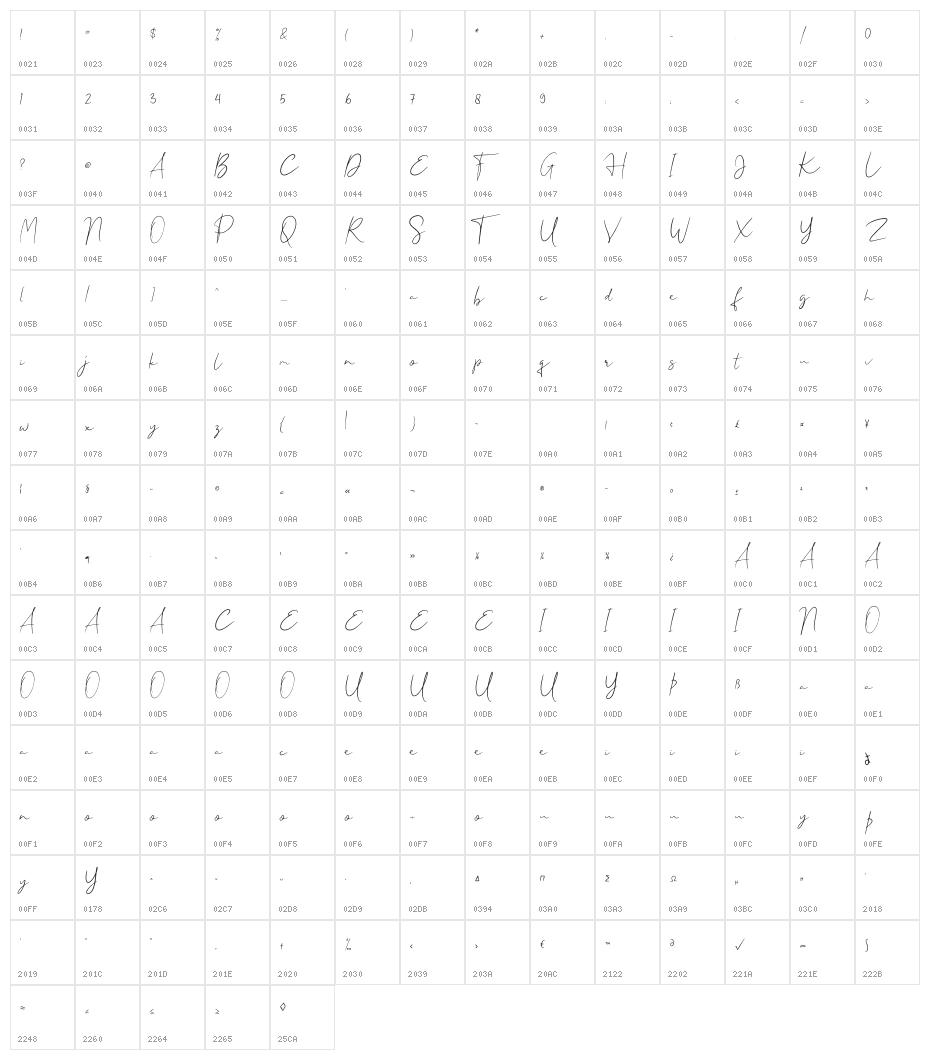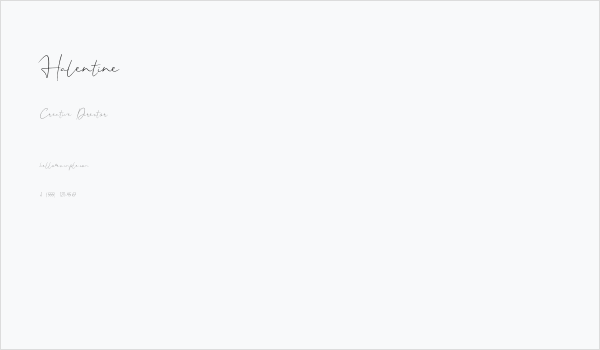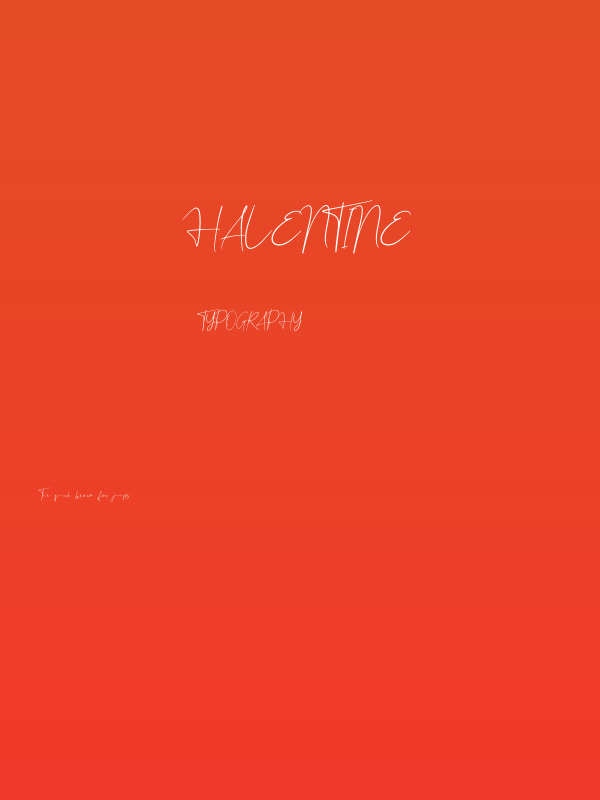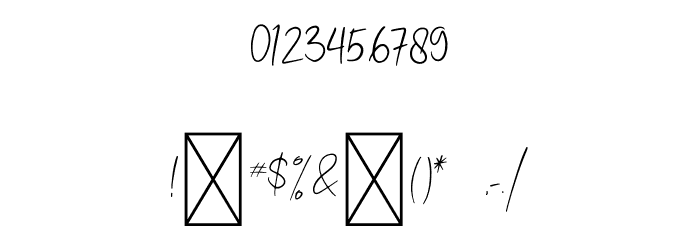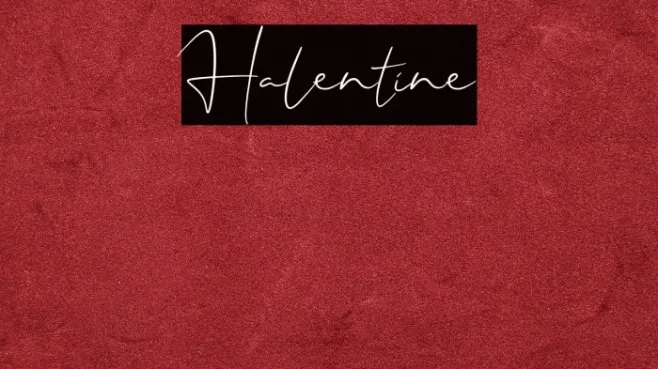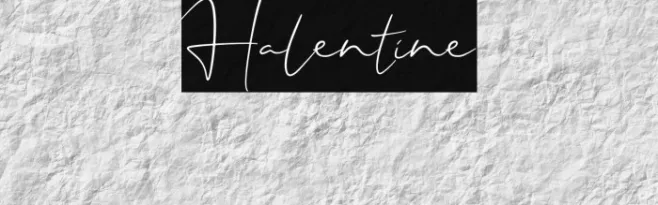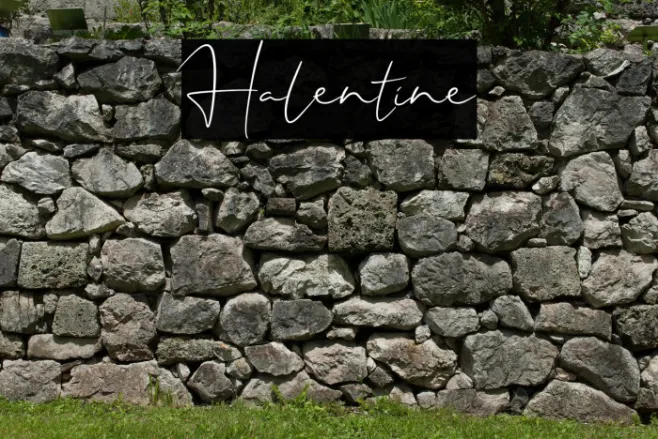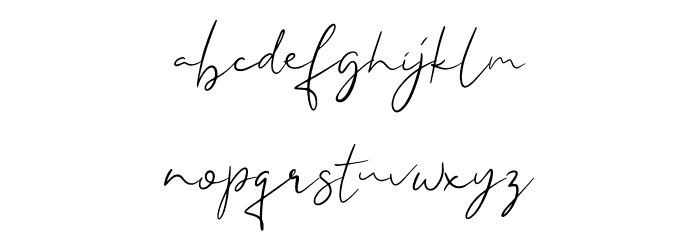
Halentine Font
Halentine Description
This font features a delicate and flowing script style, characterized by its thin, elegant strokes and a sense of fluidity. The uppercase letters are tall and slightly slanted, giving a sense of movement and grace. The lowercase letters maintain a consistent style, with loops and curves that enhance its handwritten appearance. The numerals are designed to match the overall aesthetic, with a similar thinness and curvature. Special characters are included, maintaining the same elegant and airy feel. This font exudes a sense of sophistication and is perfect for projects that require a personal, yet refined touch.
| Proposed Projects | Ideal for wedding invitations, greeting cards, personal branding, and elegant stationery. |